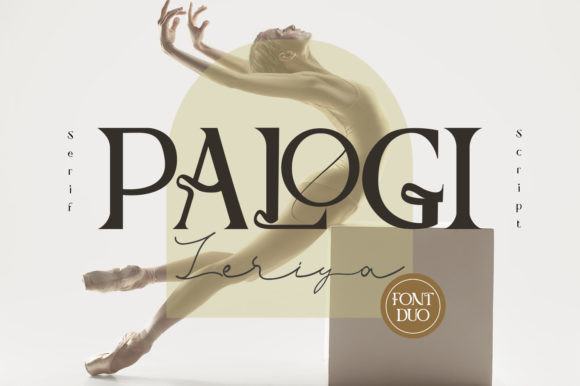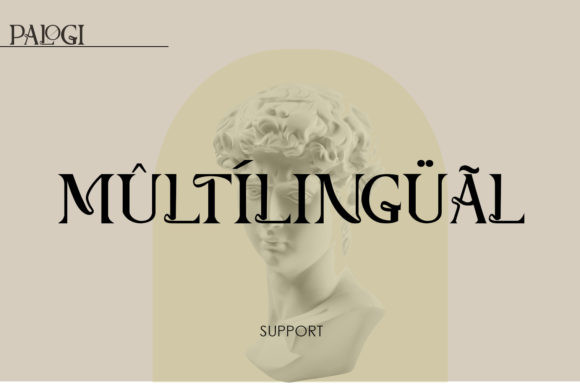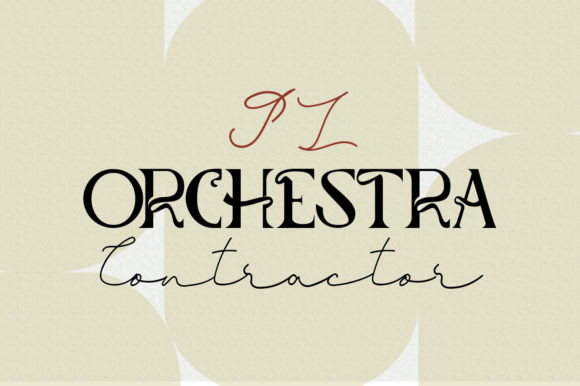
Palogi Font
Palogi is an incredibly elegant and distinct duo font (serif and script). This versatile script font has a wide spectrum of applications ranging from greeting cards to headlines and is guaranteed to add a romantic feel to your next project.